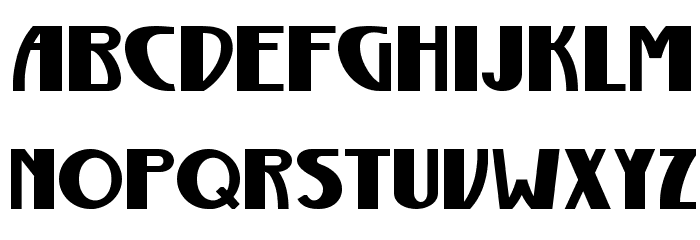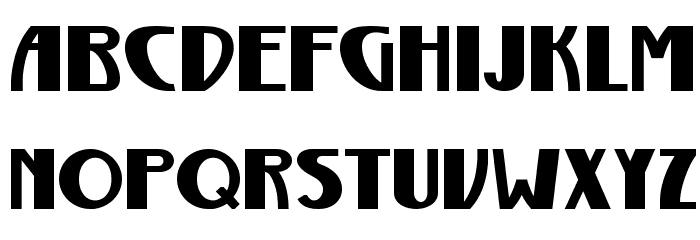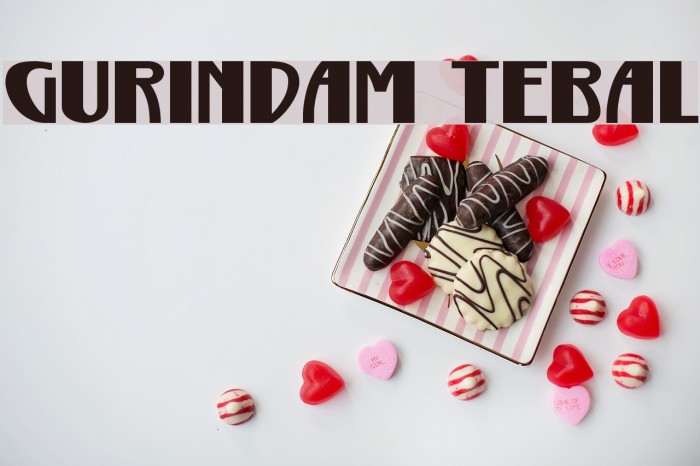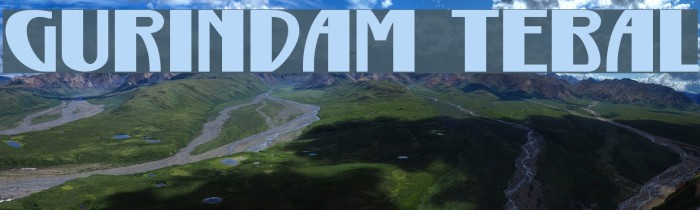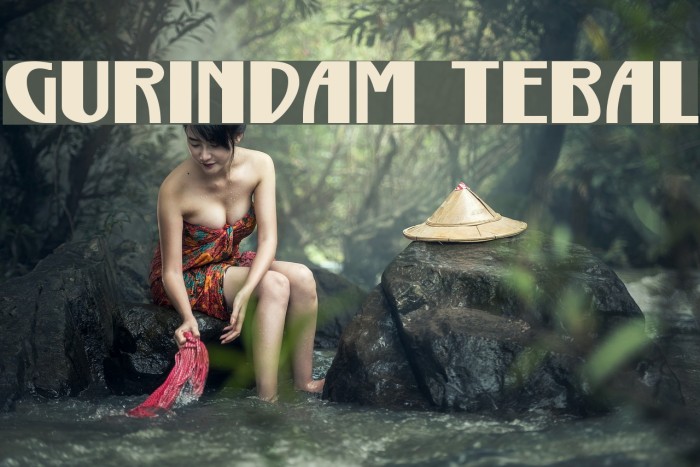
Gurindam Tebal Font
This font features bold, geometric letterforms with a strong presence. The characters are designed with a modern, angular style that gives them a unique and striking appearance. The uppercase letters are particularly bold, with a consistent stroke width that adds to their impact. The numbers and special characters maintain the same boldness and geometric style, ensuring a cohesive look across all elements. The font's design is both contemporary and versatile, making it suitable for a variety of creative applications. Its boldness and geometric nature make it ideal for projects that require a strong visual impact.
Bold, geometric font with a modern and striking appearance.
- Proposed Projects: Ideal for branding, posters, headlines, and any design requiring a strong visual impact.